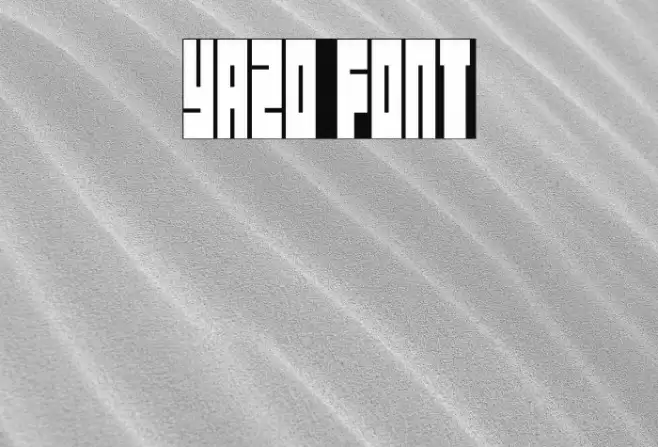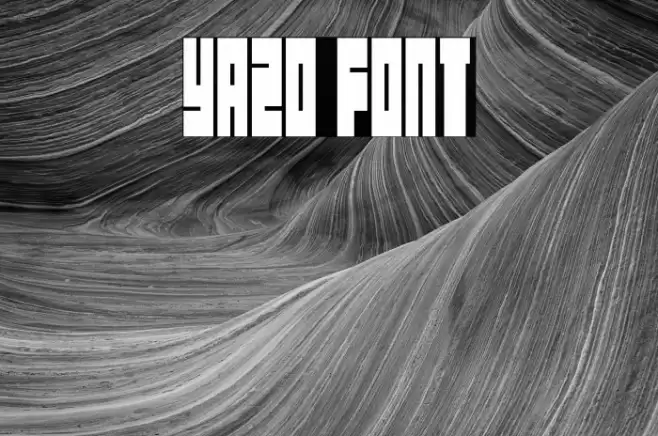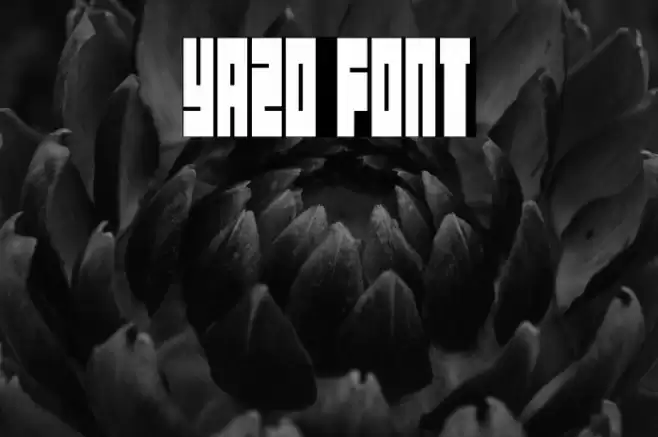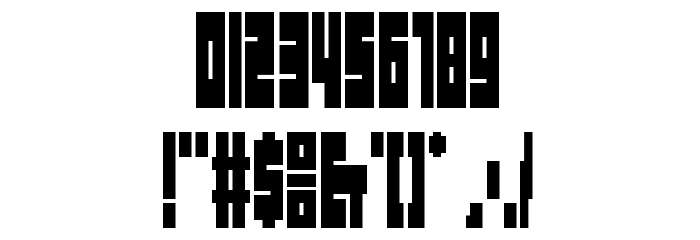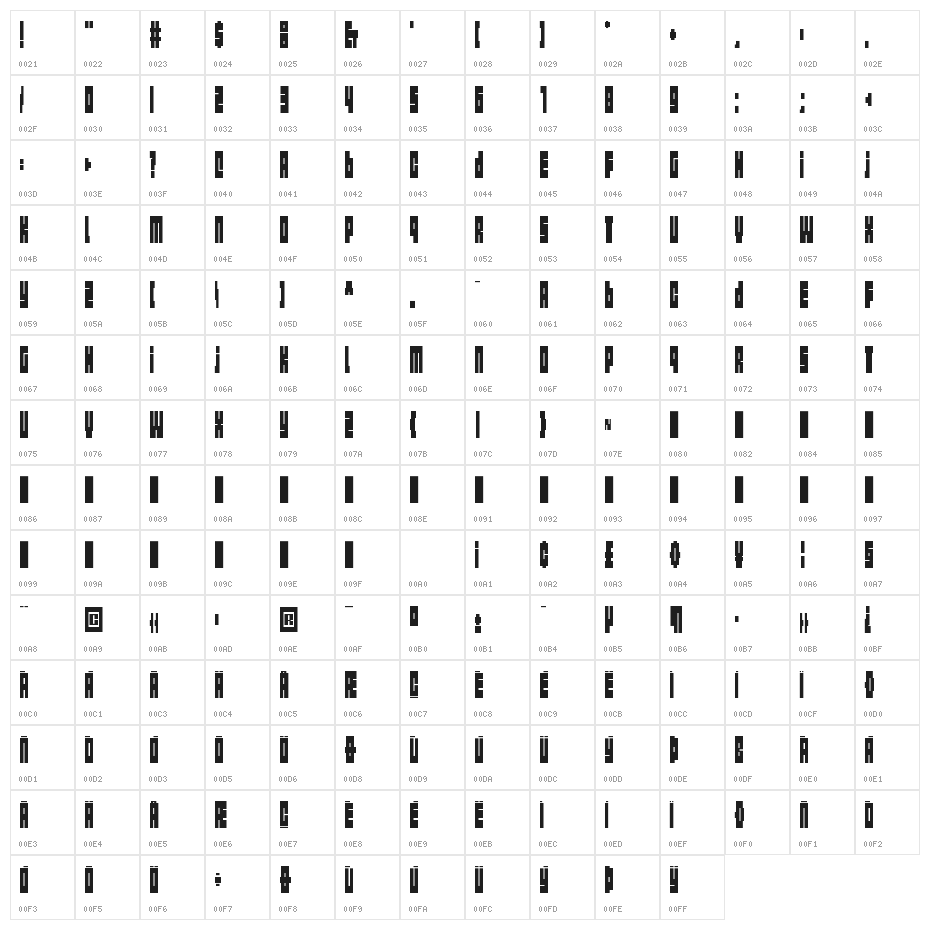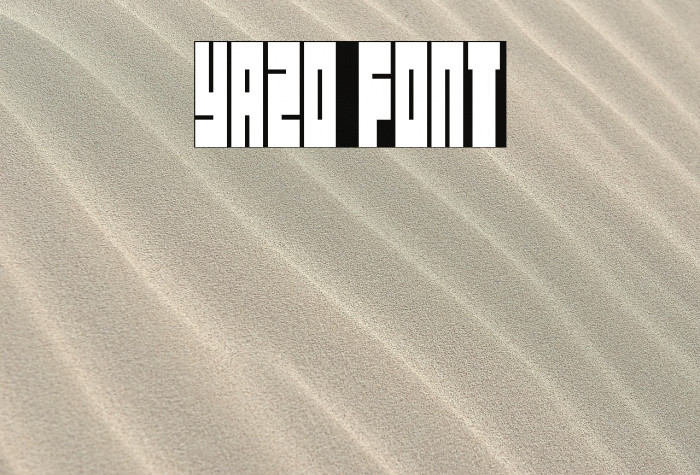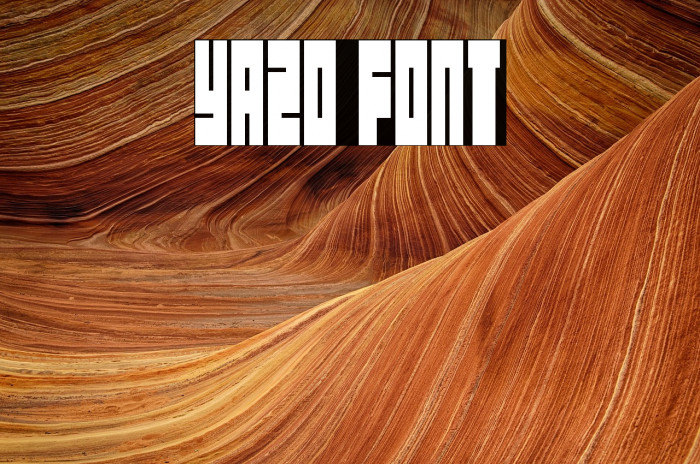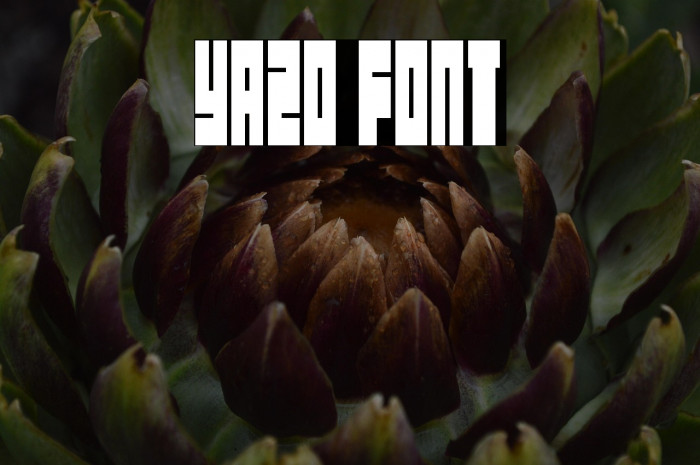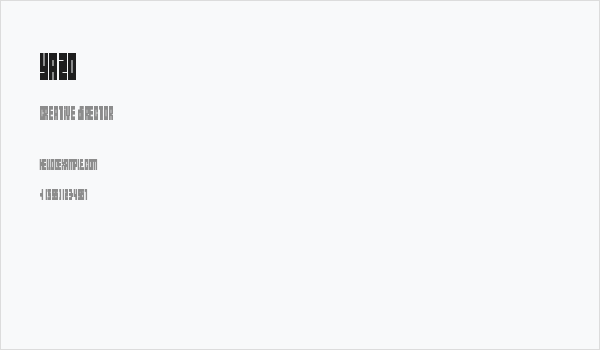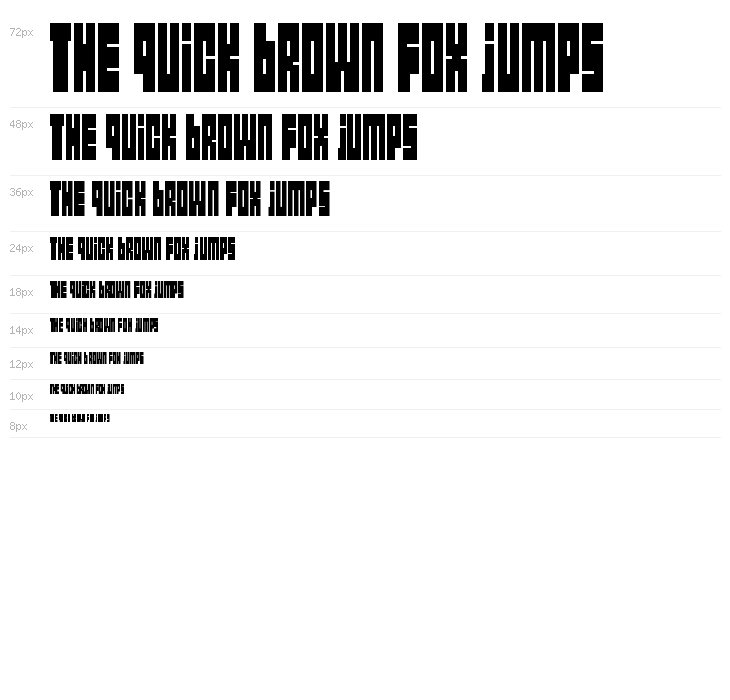
Yazo Font
Yazo Description
This font features a bold, geometric design with a distinctly modern and futuristic aesthetic. The characters are constructed with thick, block-like shapes that create a strong visual impact. The uppercase and lowercase letters maintain a consistent height, contributing to a uniform appearance. The numbers and special characters follow the same bold and structured style, ensuring cohesion across all elements. This font's design is characterized by its sharp angles and straight lines, giving it a robust and industrial feel.
A bold, geometric font with a modern, futuristic aesthetic from Uncategorized fonts.